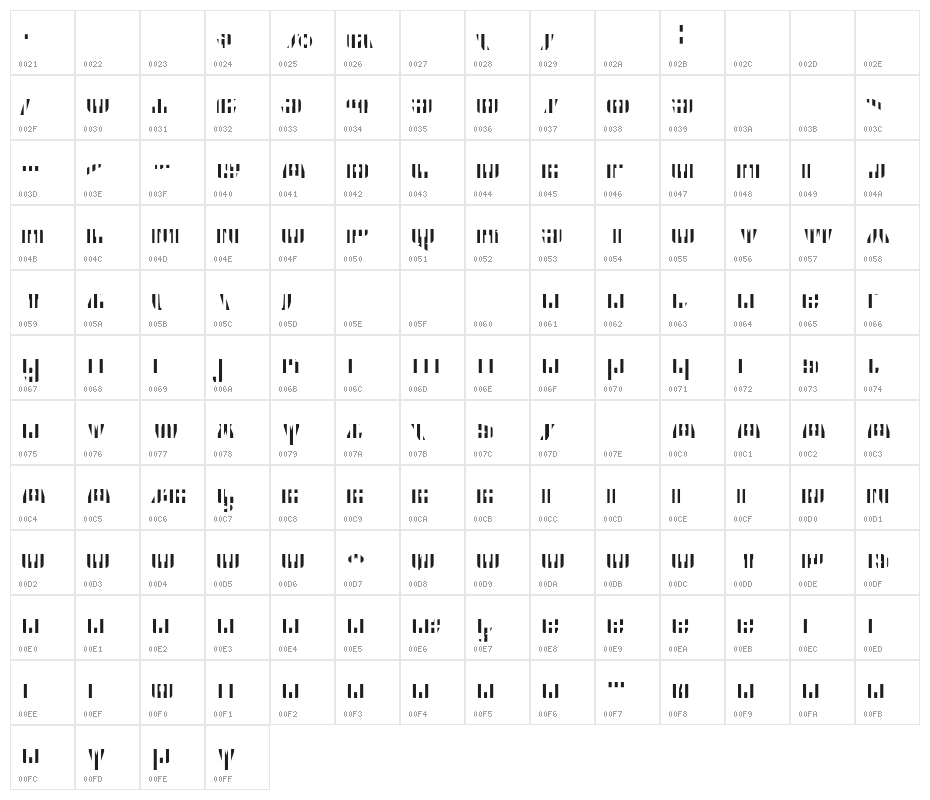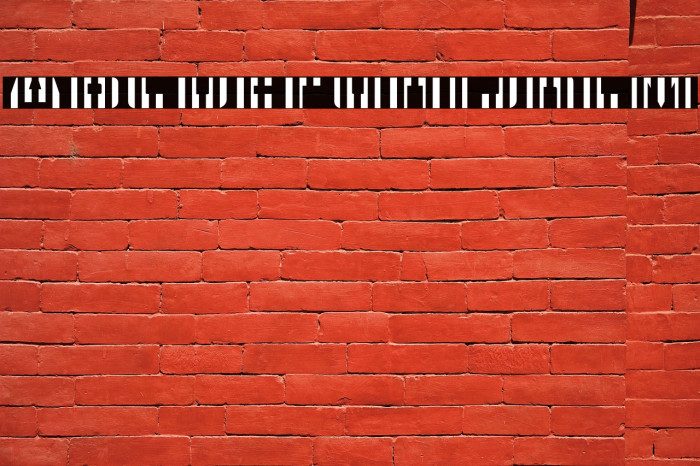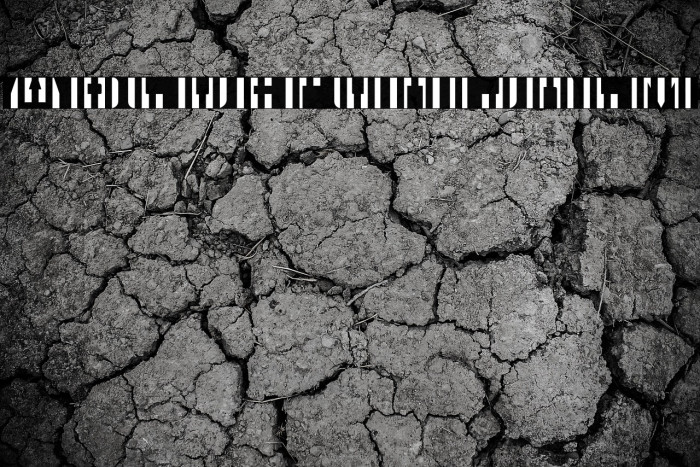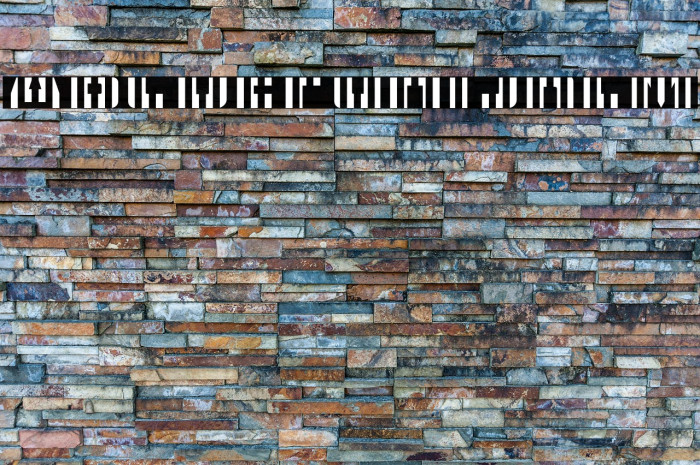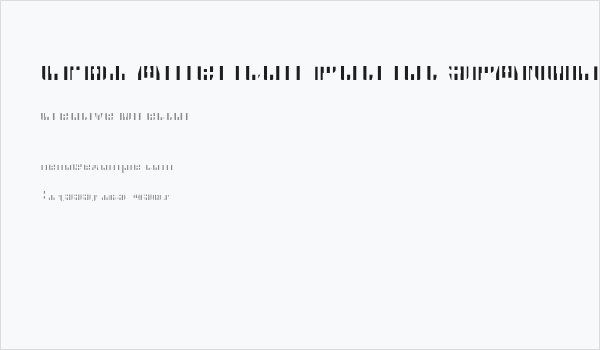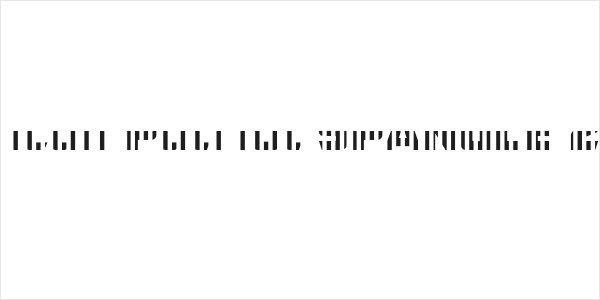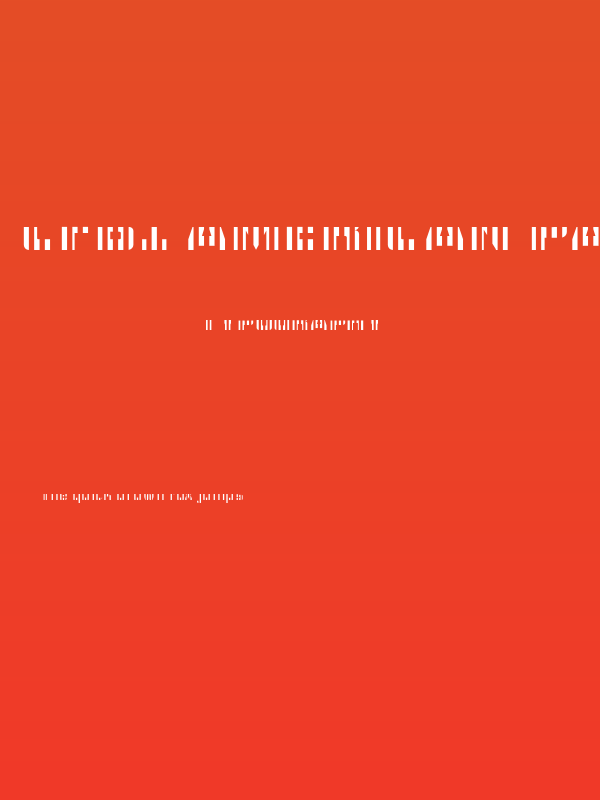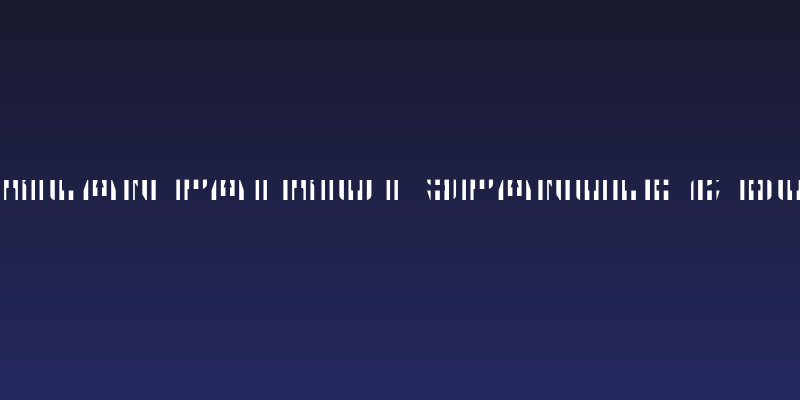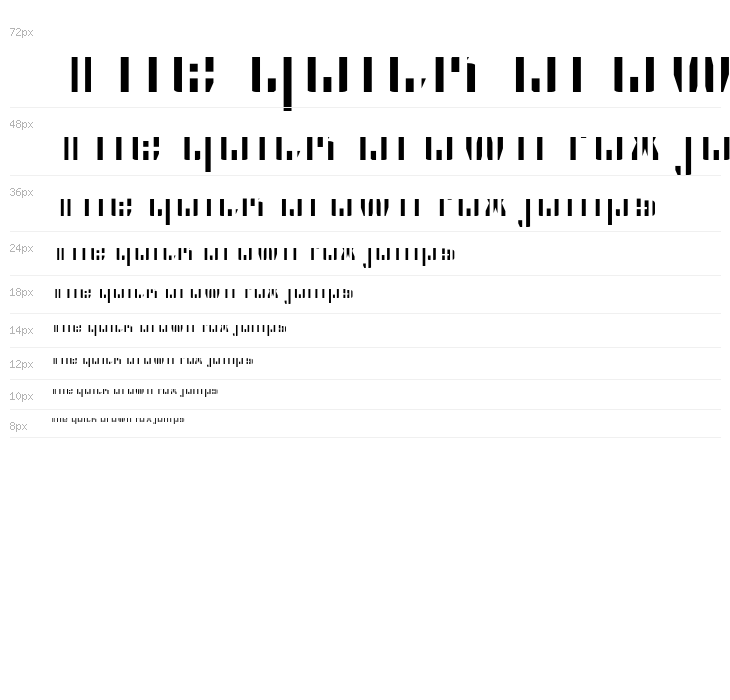
CFB1 American Patriot SPANGLE 2 Bold Italic Font
CFB1 American Patriot SPANGLE 2 Bold Italic Description
This font features a bold and italicized style with a distinctly modern and decorative flair. The characters are designed with a stencil-like appearance, incorporating breaks within the strokes that add a unique visual interest. The uppercase and lowercase letters maintain a consistent design theme, with sharp angles and clean lines that contribute to its striking aesthetic. The numbers and special characters are equally bold, ensuring uniformity across all elements. This font's design is ideal for projects that require a strong visual impact, such as posters, banners, or branding materials.